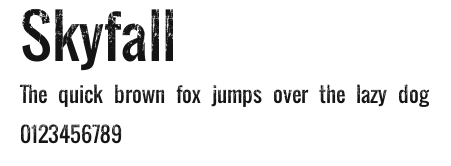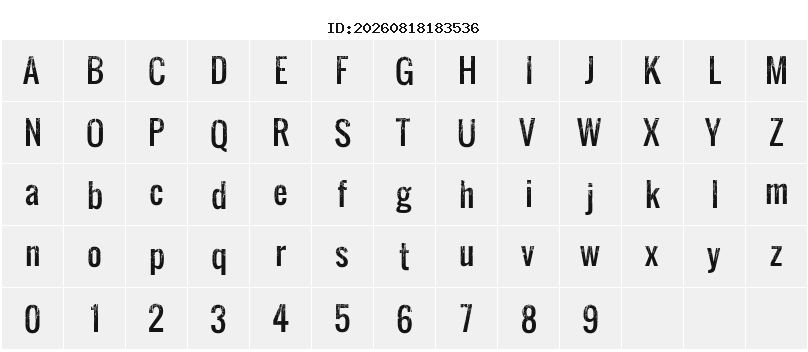
Skyfall Preview
• Font Name: Skyfall
• Font ID: Che : Skyfall : 18-3-2013
• Full Font Name: Skyfall Regular
• PostScript Name: Skyfall-Regular
• Designer: Chepi Dev
• Manufacturer: Chepi
• Description: The font inspired by "Skyfall, James Bond 007" Movie.
About Skyfall.ttf
Skyfall.ttf is a modern, elegant sans-serif font designed for ultimate readability and visual harmony. Perfect for branding, headlines, web design, and print materials.